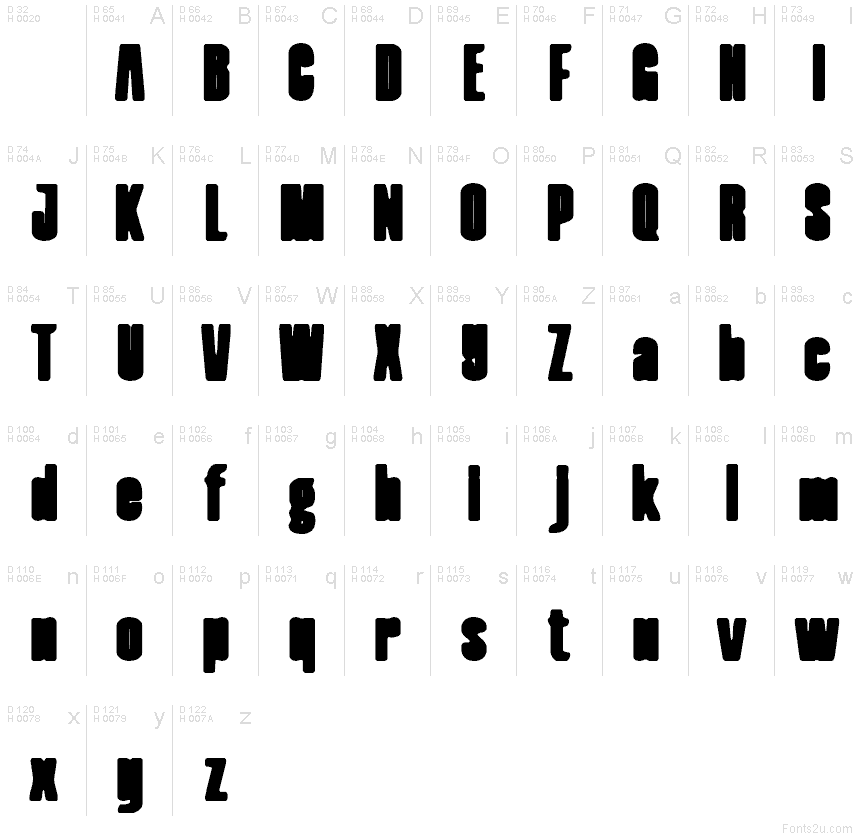
CS Cedar Drawn font by Craft Supply Co. is a free bold condensed display font built in the CS Cedar family. It stands out with pillowy, rounded strokes and deep scooped cuts that carve lively negative shapes, giving each word a bouncy, sculpted rhythm. The tight width keeps headlines punchy without sacrificing warmth—think glossy, ink-heavy blocks that read fast and feel tactile.
Using CS Cedar Drawn, you get standout impact for posters, packaging, cafe menus, stickers, merch, and splashy social graphics. This free font loves large sizes and tight tracking; pair it with a plain grotesk or a lightweight serif to let its chunky curves lead.